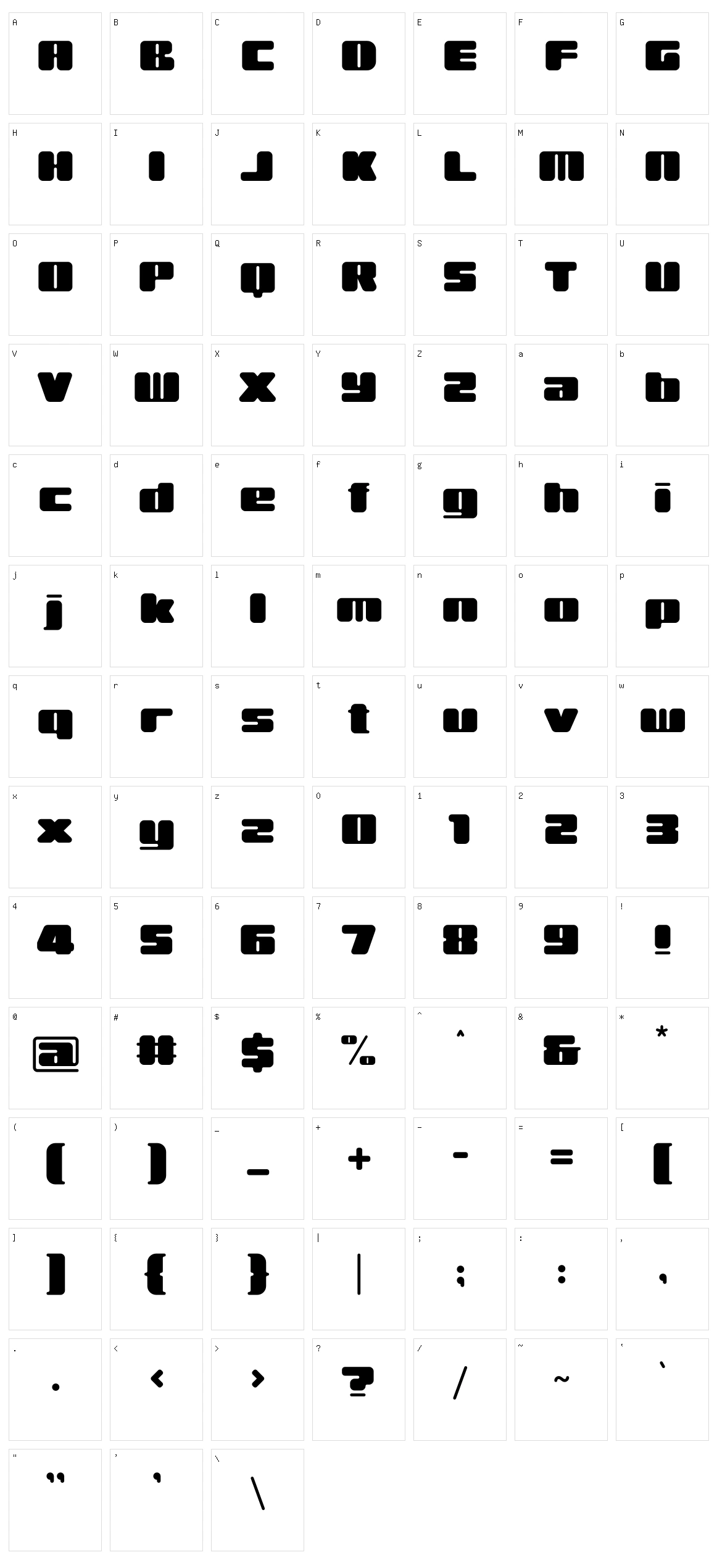
Rahovets is an ancient settlement and fortress located near the town of Gorna Oryahovitsa in Bulgaria. Rahovets by Fontease is a free font inspired by an inscription on the most popular Bulgarian compact oven from the communist era, which bears the same name. Have fun! Enjoy our free font! :)